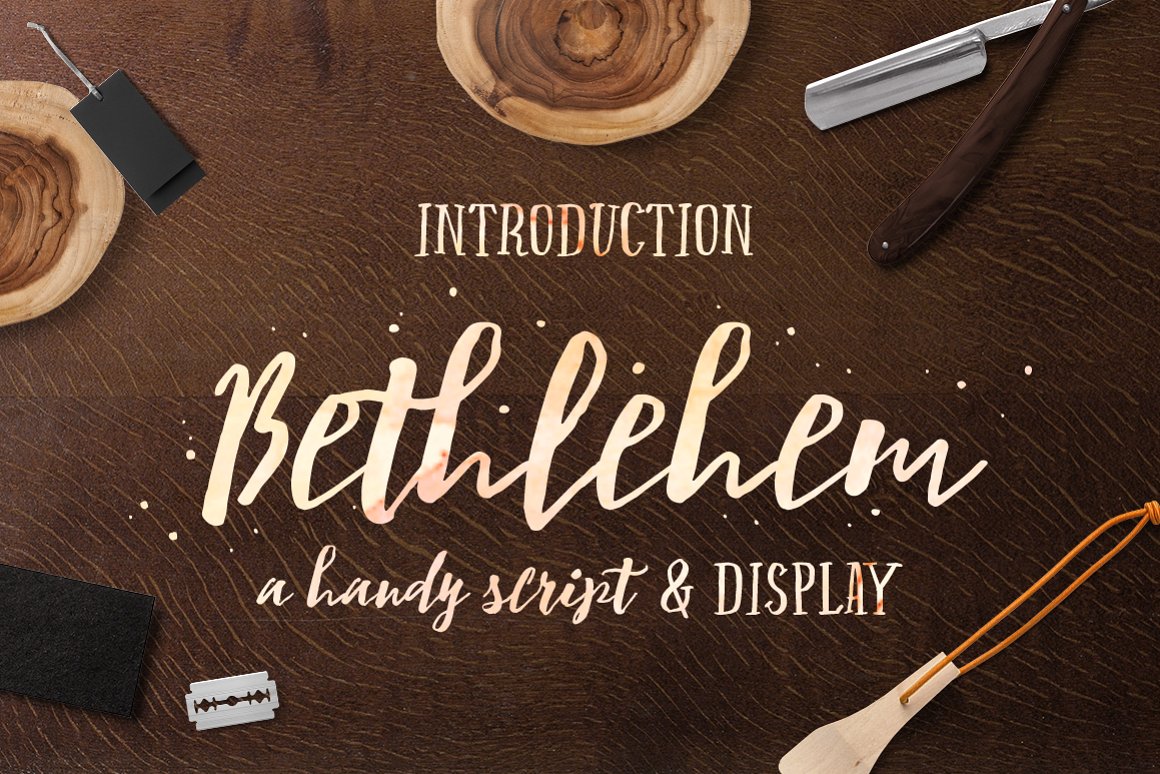
Bethlehem Script
Bethlehem Script Font
If you ever thought about having a real hand drawn script font to use on an invitation, greeting card, poster, book or cd cover, etc, then Bethlehem font is a great choice; Bethlehem is an illustrative typeface designed to be real and natural to look like hand-lettered script. The scattered ink you seen in the preview are also included as alternative characters. So you can play with it to create a beautiful illustrative lettering.